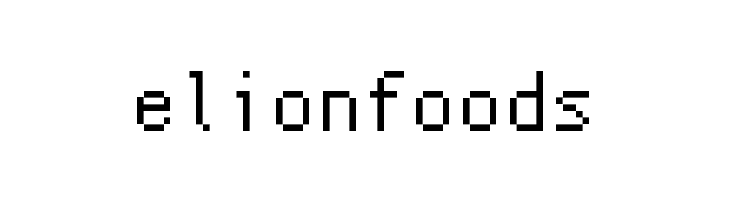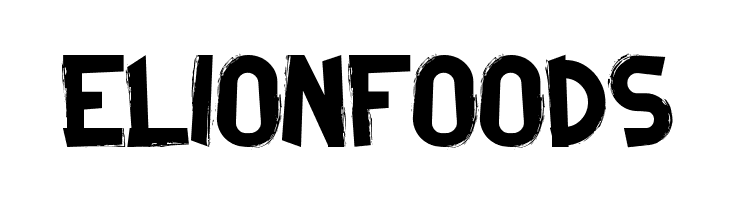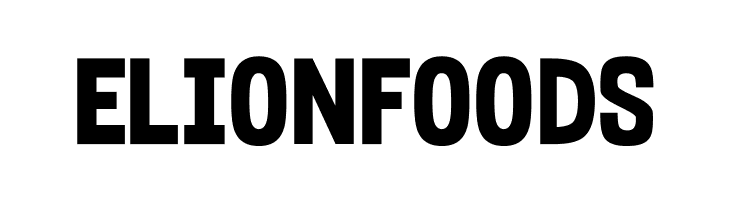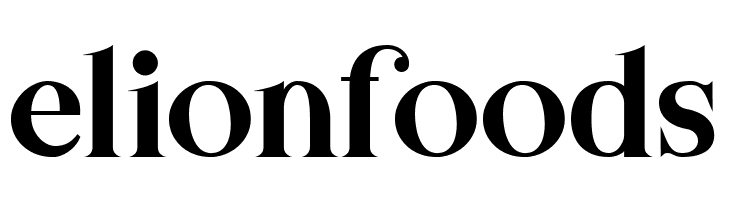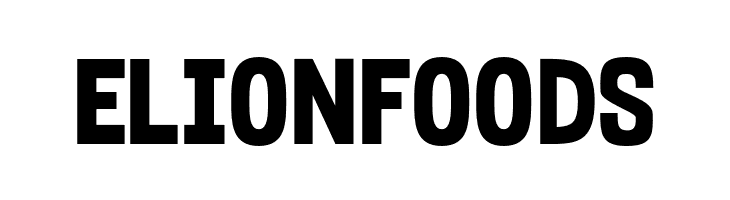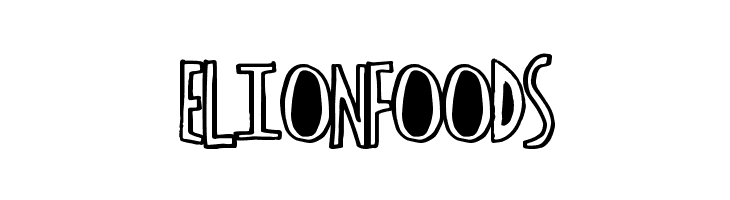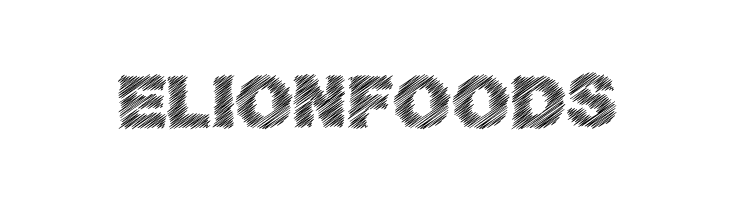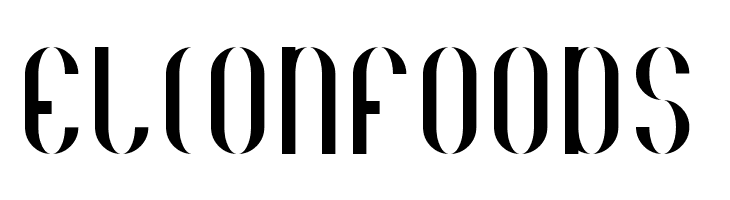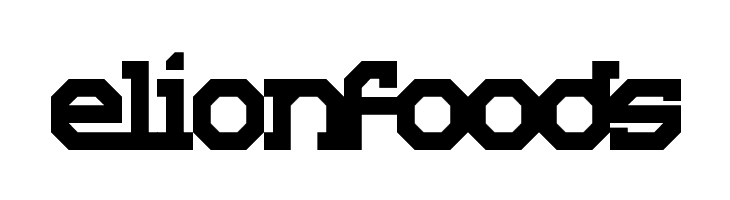
A playful, hand-drawn font with a whimsical and bold style.
A bold, high-contrast font with sharp angles and modern flair.
A classic serif font with elegant, sharp lines and traditional details.
A scratchy, hand-drawn font with dynamic texture and bold style.
A bold, brush-style font with dynamic, textured strokes.
A bold, angular font with a futuristic and industrial design.
A bold, blocky font with strong, uniform characters.
A bold, geometric font with strong legibility and modern appeal.
A pixelated, monospaced font with a retro digital aesthetic.
A bold, textured brush font with a dynamic, hand-painted style.